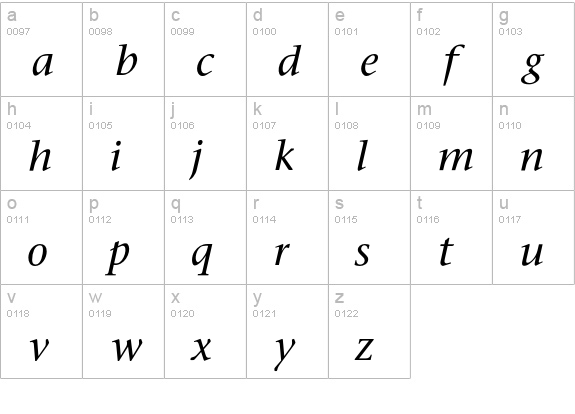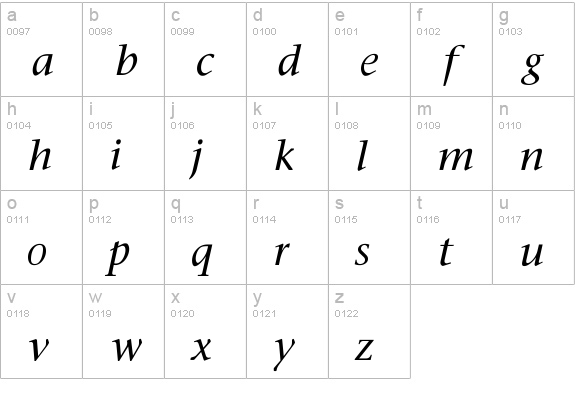
StoneSerifMediumItalic Font Details
StoneSerifMediumItalic is a versatile and elegant font that exudes sophistication and style. With its medium weight and italicized design, this font is perfect for adding a touch of class to any project. The slanted angles and subtle curves give StoneSerifMediumItalic a unique and modern look that is sure to catch the eye. Best of all, StoneSerifMediumItalic is available for free download at FontsMarket.com. Whether you're designing a logo, crafting a marketing campaign, or working on a personal project, this font is a valuable addition to your collection. Don't miss out on the opportunity to enhance your designs with the timeless appeal of StoneSerifMediumItalic - download it for free today!